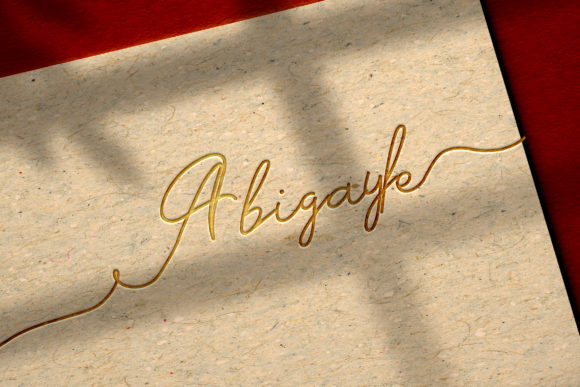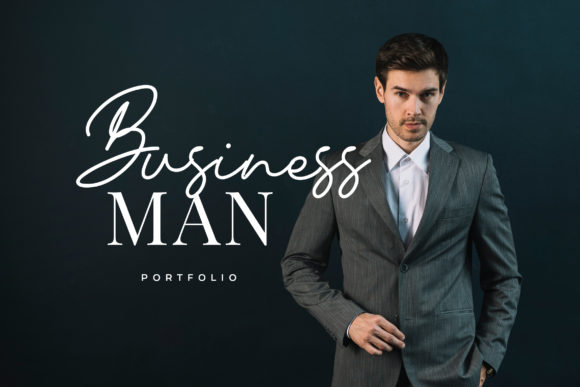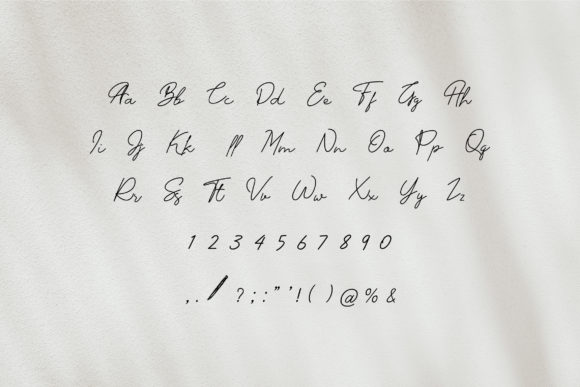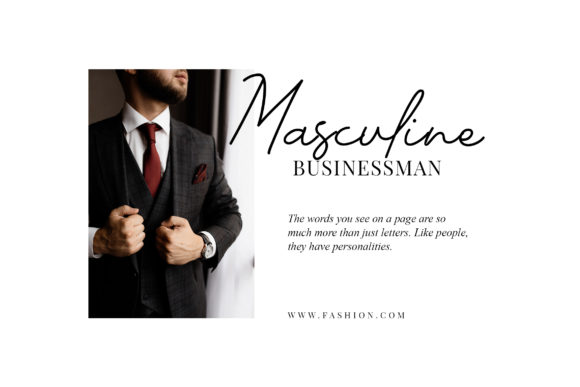
Introduction to Qardenia Font
You know that feeling when you’re working on a creative project, and you just can’t seem to find the perfect font to bring your vision to life? I’ve been there too, and it’s frustrating. But what if I told you that there’s a font that could change all that? A font that’s not only beautiful but also versatile and easy to use.
Enter the Qardenia Font, a dazzling and refined script font that’s sure to elevate any design project. With its clean, thin, and smooth vibe, it’s the perfect addition to any design resource. Whether you’re working on a personal project or a commercial one, Qardenia Font is a must-have for any designer looking to add a touch of sophistication and elegance to their work.
Key Features of Qardenia Font
- Unique Calligraphy Style: Qardenia Font offers a beautiful, elegant calligraphy style perfect for creative projects that require a touch of sophistication.
- High-Quality Design Resource: This font is a high-quality design resource, ideal for designers and artists looking for a premium feel in their work.
- Transparent Background: Qardenia Font features a transparent background, allowing for seamless integration with any design or image.
- Resolution-Independent: With a high-resolution design, Qardenia Font looks great at any size, from small text to large headlines.
Honest Review: Qardenia Font
As a designer, I’m always on the lookout for high-quality design resources to elevate my creative projects. The Qardenia Font caught my attention with its elegant and sophisticated design.
- ✨ High-quality design: The font is well-crafted, with smooth lines and a clear, readable structure.
- ✨ Versatility: The font is suitable for a wide range of creative projects, from business presentations to personal blog designs.
- ⚠️ Limited language support: The font only supports a few languages, which may be a concern for designers working on international projects.
- ⚠️ No transparent background option: While the font itself is beautiful, it would be nice to have the option to use a transparent background for more flexibility.
Overall, the Qardenia Font is a solid choice for designers looking for a high-quality, free design resource. While it may have some limitations, its elegant design and versatility make it a great addition to any design toolbox.
Tips for Getting the Most Out of the Qardenia Font
Use the Qardenia Font in high-quality designs to add a touch of elegance. Experiment with different font sizes and styles to create a visually appealing design. Also, use the font’s transparency option to create a seamless design with a transparent background.
Common Use Cases for the Qardenia Font
The Qardenia Font is ideal for creative projects that require a high-quality, elegant font with a transparent background. Use it for presentations, social media graphics, business cards, and more.